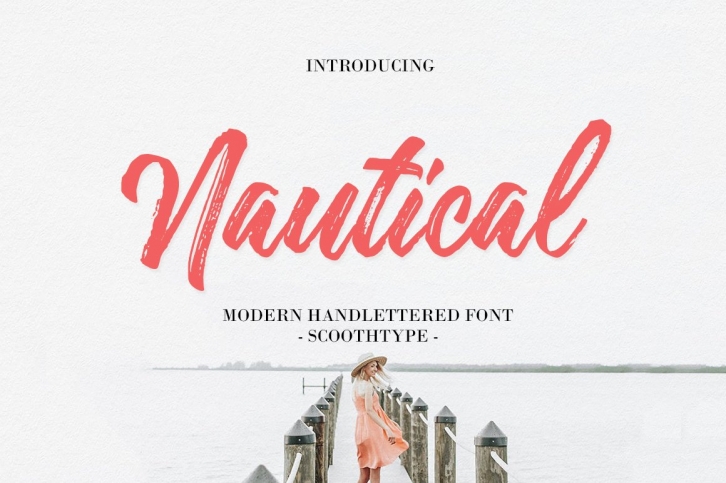
Nautical is a gorgeous font that was realeased on June 24, 2021. The font can be used in many style contexts and design environments. Perfect for invitations, magazines, websites, logos, and more! It was designed by scoothtype and the file size is 21.78 MB. Thanks for checking out this font!